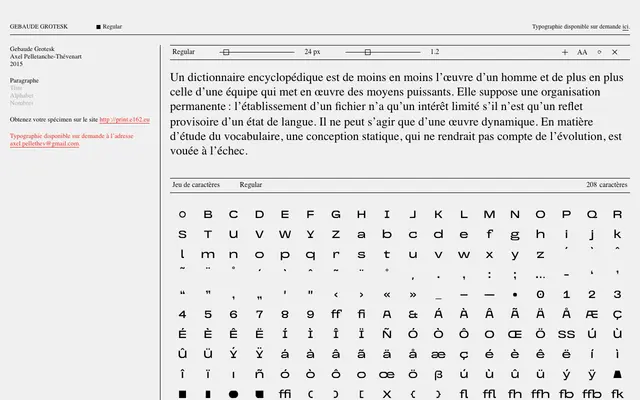
Gebaude Grotesk
E162 · Axel Pelletanche-Thévenart · 2015
A single-weight grotesque released in 2015 by French designer Axel Pelletanche-Thévenart under the E162 foundry, available on request.
A modest grotesque sans-serif with a character set of 208 glyphs, issued in one Regular weight without italic or condensed companions. Released under the small French foundry E162, the typeface is available only on request via the designer's contact, suggesting a limited or bespoke distribution model. Suited to text and titling work where a clean, unadorned grotesque is required.
Named 'Grotesk' and presented in a single upright weight with no italics or condensed cuts, consistent with a traditional grotesque sans-serif design.